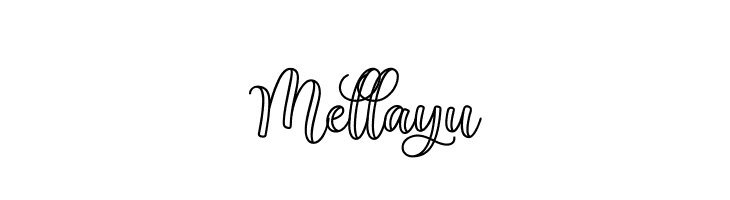
A dynamic, flowing script font with smooth, cursive strokes.
An elegant and flowing script font with sophisticated cursive letters.
An elegant, flowing script font with smooth, cursive strokes and sophisticated loops.
A playful and elegant handwritten script font.
An elegant, whimsical script font with decorative swirls and artistic flair.
An elegant, flowing script font with a handwritten style.
A flowing, cursive font with elegant curves and a sophisticated style.